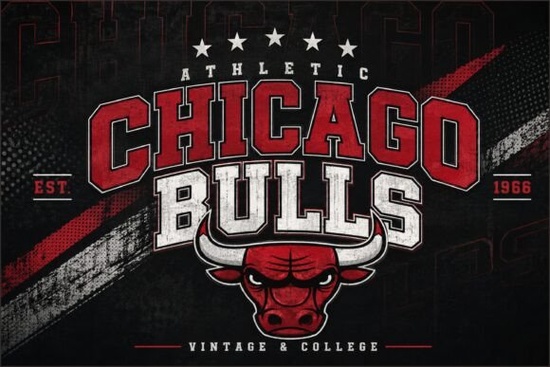
If you're looking for a bold typeface that captures the spirit of classic American sports, the Chicago Bulls Font is worth a closer look. This varsity-style design draws from vintage collegiate lettering with strong slab shapes, outlined details, and a retro athletic feel. It works well for sports branding, team merchandise, streetwear, and any project that needs that classic American sports typography vibe.
What Makes This Font Stand Out?
The design has a strong, confident presence. The thick block letters and outlined edges give it a look you'd expect on old-school letterman jackets and gymnasium banners. It doesn't try to be trendy or minimal it leans into that raw, athletic energy that vintage college fonts are known for.
Compared to more modern or decorative options, this typeface keeps things clean and impactful. The letterforms are easy to read at different sizes, which makes it flexible for both large prints and smaller logo work. If you've browsed other varsity-style display fonts, you'll notice this one has a slightly more rugged, outlined character that sets it apart.
What Can You Use It For?
This font works across a surprisingly wide range of creative projects. Here are some common uses:
- Sports jerseys and team merchandise the obvious choice, but it really does work well for custom jersey numbers and player names
- Streetwear and clothing brands vintage athletic fonts are a staple in streetwear design
- Logos and badges especially for sports teams, gyms, or athletic brands
- Posters and event flyers great for tournaments, fundraisers, or school events
- Print-on-demand products t-shirts, hoodies, mugs, and stickers
- College and university branding projects
- Retro typography designs anything that needs a nostalgic, old-school American look
Who Is This Font Best For?
This typeface is a solid fit for:
- Print-on-demand sellers looking for bold, sports-themed fonts that sell well on apparel
- Small business owners building a brand around athletics, fitness, or streetwear
- Designers and crafters who work on team logos, school spirit projects, or vintage-inspired graphics
- Creative hobbyists who enjoy making posters, banners, or party decorations with a sports theme
Does It Pair Well With Other Fonts?
Absolutely. Bold display fonts like this one usually work best when paired with something simpler for body text or supporting copy. A clean sans-serif or even a simple, minimal display font can balance out the heavy athletic look nicely.
Quick Tips Before You Start Designing
- Test at different sizes this font has outlined details that look best when they're visible, so avoid using it too small
- Use it for headlines and titles it's designed for impact, not long paragraphs of text
- Stick to solid, high-contrast colors black on white, red on black, or white on dark backgrounds work best
- Pair with a simple secondary font for product descriptions or supporting text